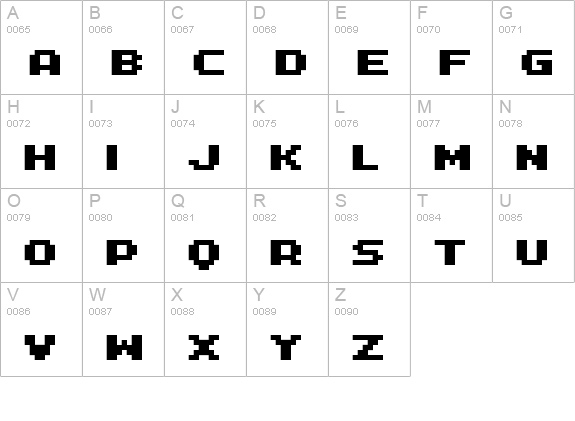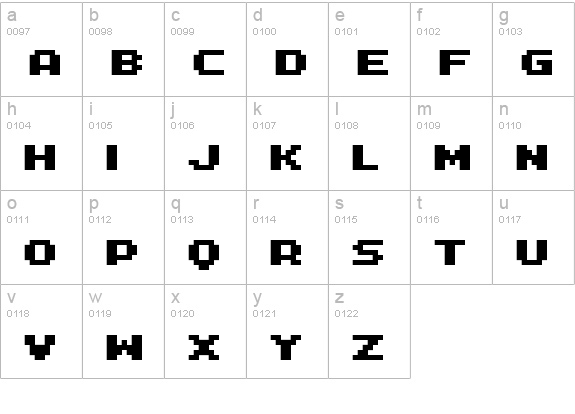
FFF Interface02b Font Details
The FFF Interface02b font is a modern and sleek typeface that exudes a sense of sophistication and professionalism. Its sharp edges and clean lines make it perfect for a wide range of design projects, from branding to web design. The font's geometric shapes add a touch of contemporary style, while its bold presence ensures readability and impact. What makes FFF Interface02b even more appealing is that it is completely free to download at FontsMarket.com. This means you can access this high-quality font without any cost, making it a valuable asset for designers and creatives looking to elevate their work without breaking the bank. With its versatility and modern aesthetic, FFF Interface02b is sure to become a go-to choice for your design projects.